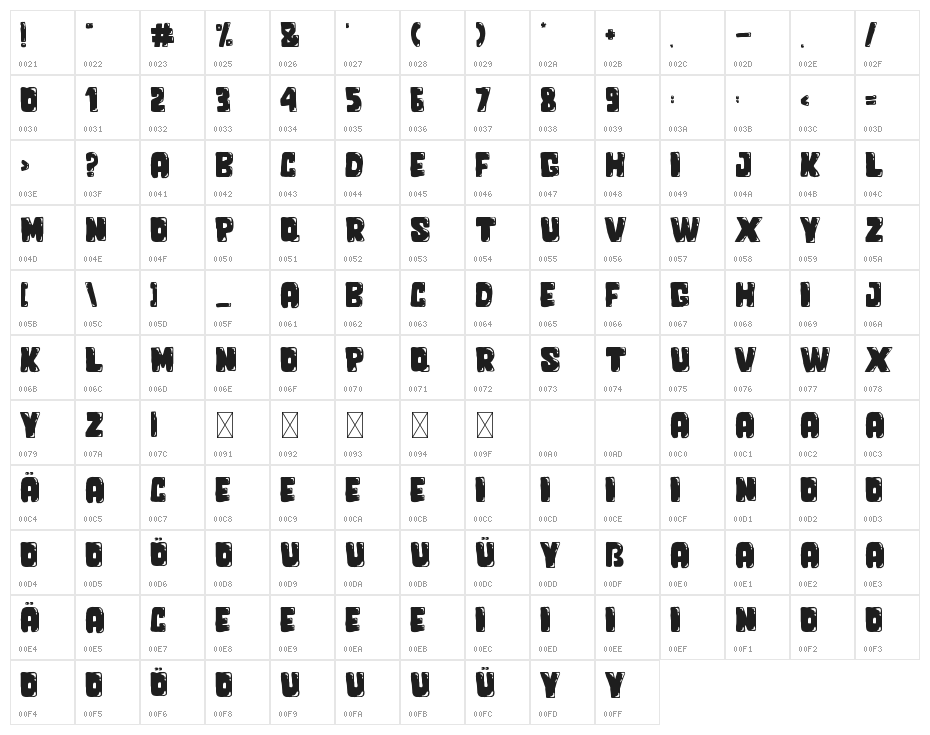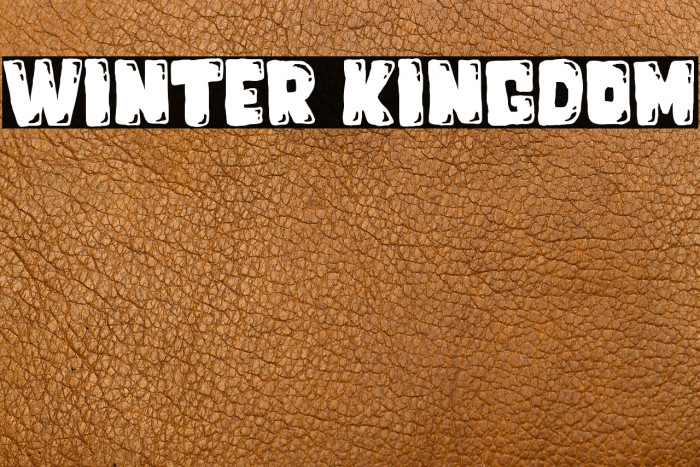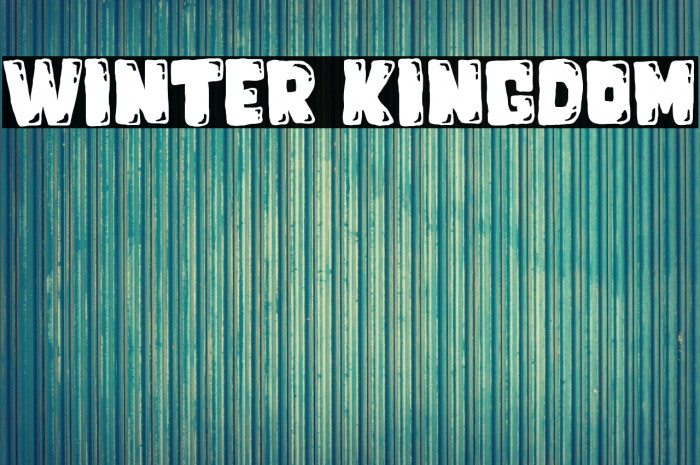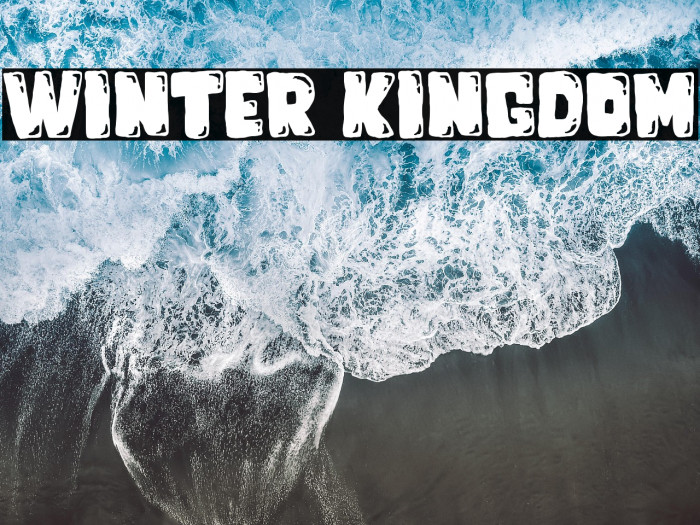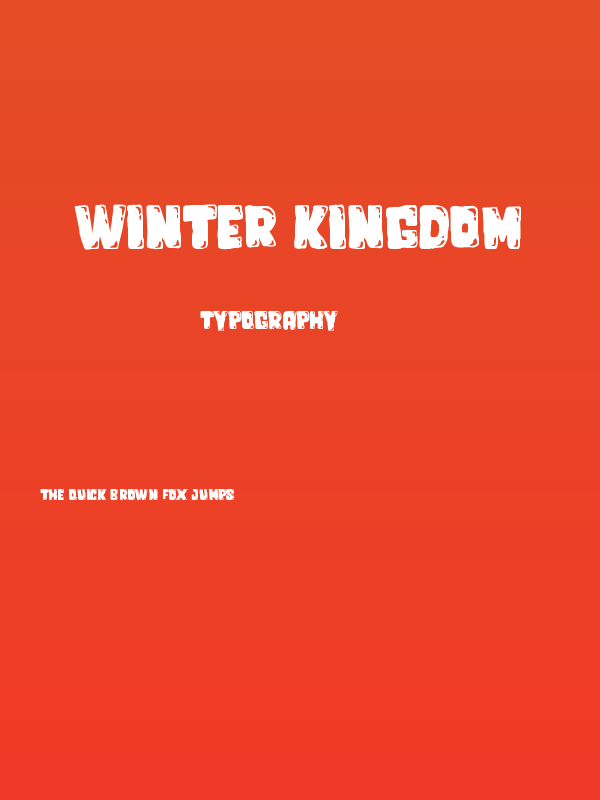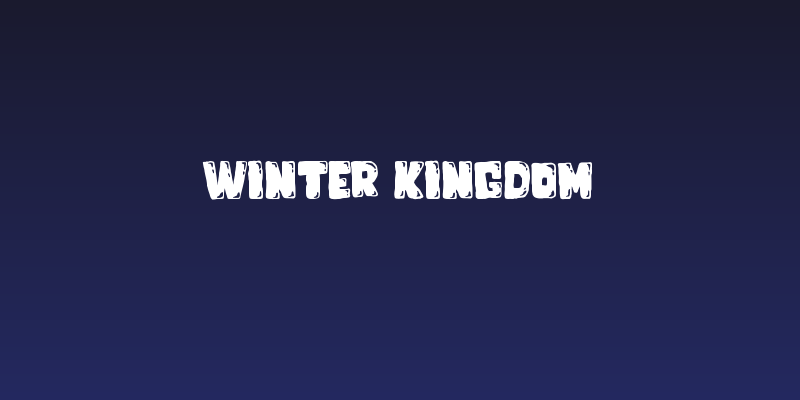
Winter Kingdom Font
Winter Kingdom Description
This font features a bold, playful design with a rugged, textured appearance reminiscent of snow or ice. The characters are thick and heavy, with irregular edges that give a hand-carved feel. The uppercase and lowercase letters maintain a consistent style, and the numbers and special characters are equally bold and distinctive. This font's unique style makes it stand out, perfect for capturing attention with its winter-themed aesthetic.
Proposed ProjectsIdeal for holiday cards, winter-themed posters, children's book covers, and festive branding materials.